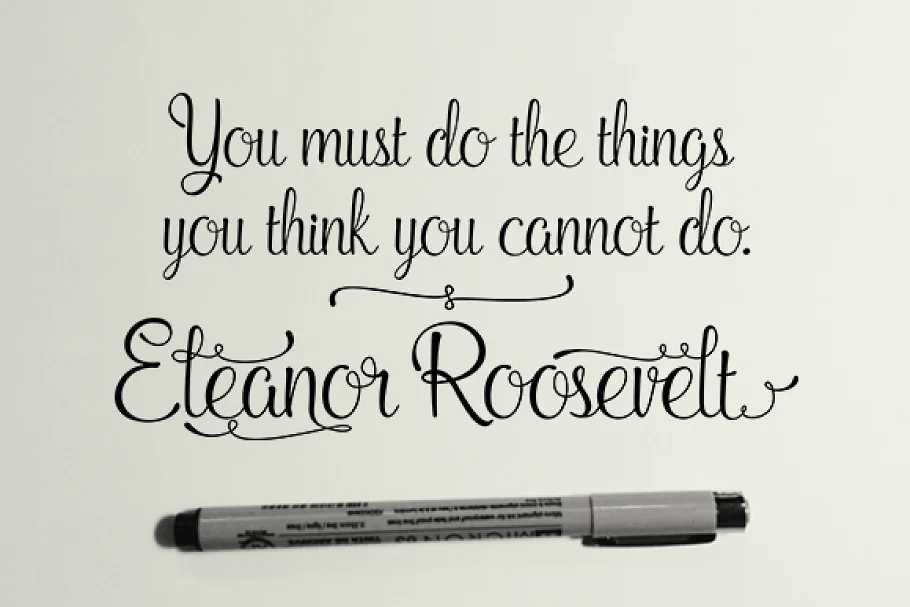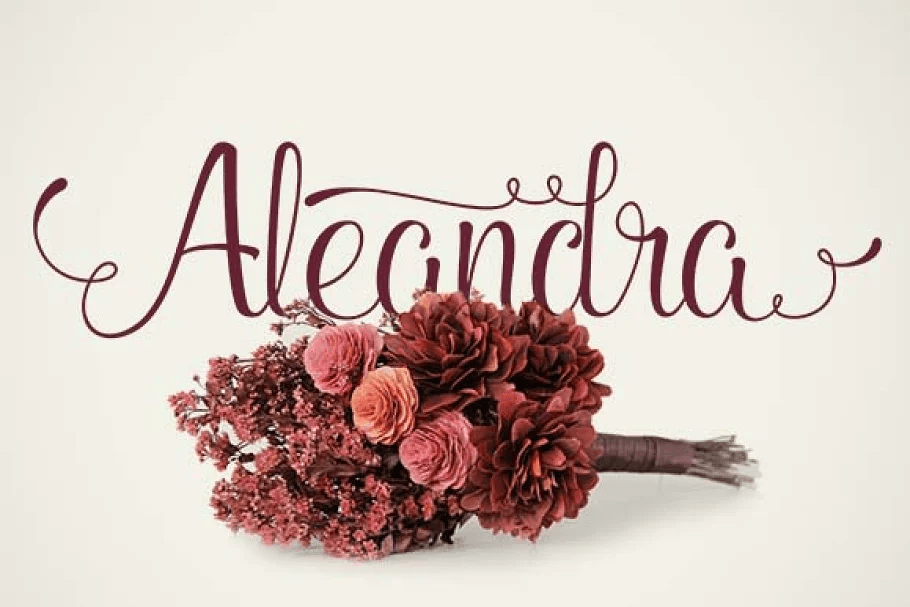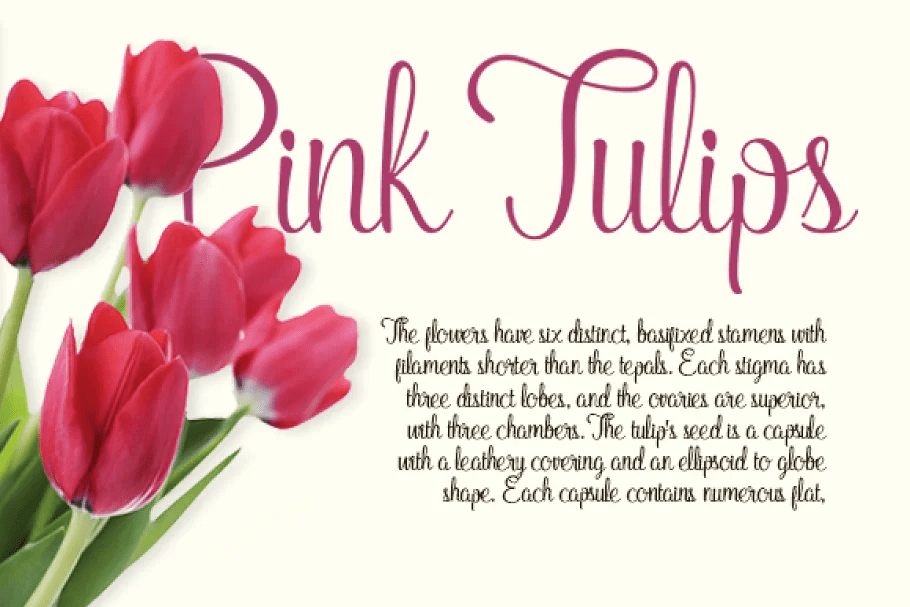
About Aleandra Script
Aleandra Script is a display typeface that adopts two building models: the typographic (with repetition of shapes) and the script (with the freedom of writing). The models are presented in a subtle, unobtrusive way and mainly without conflicts. The essence…